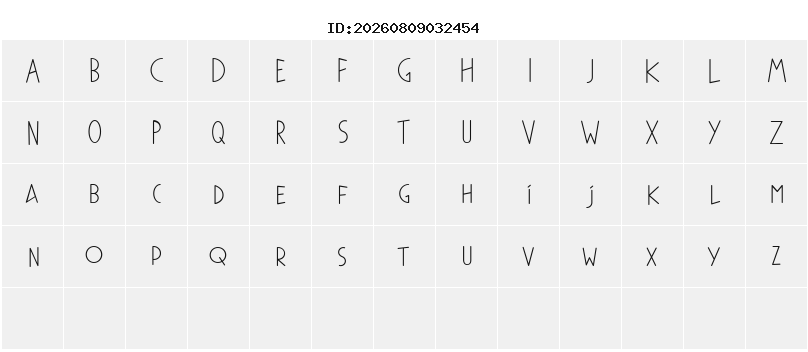
• Font Name: Phylactere DEMO
• Designer: Florent COURTAIGNE
About Phylactere DEMO.ttf
Phylactere DEMO.ttf is a modern, elegant sans-serif font designed for ultimate readability and visual harmony. Perfect for branding, headlines, web design, and print materials.